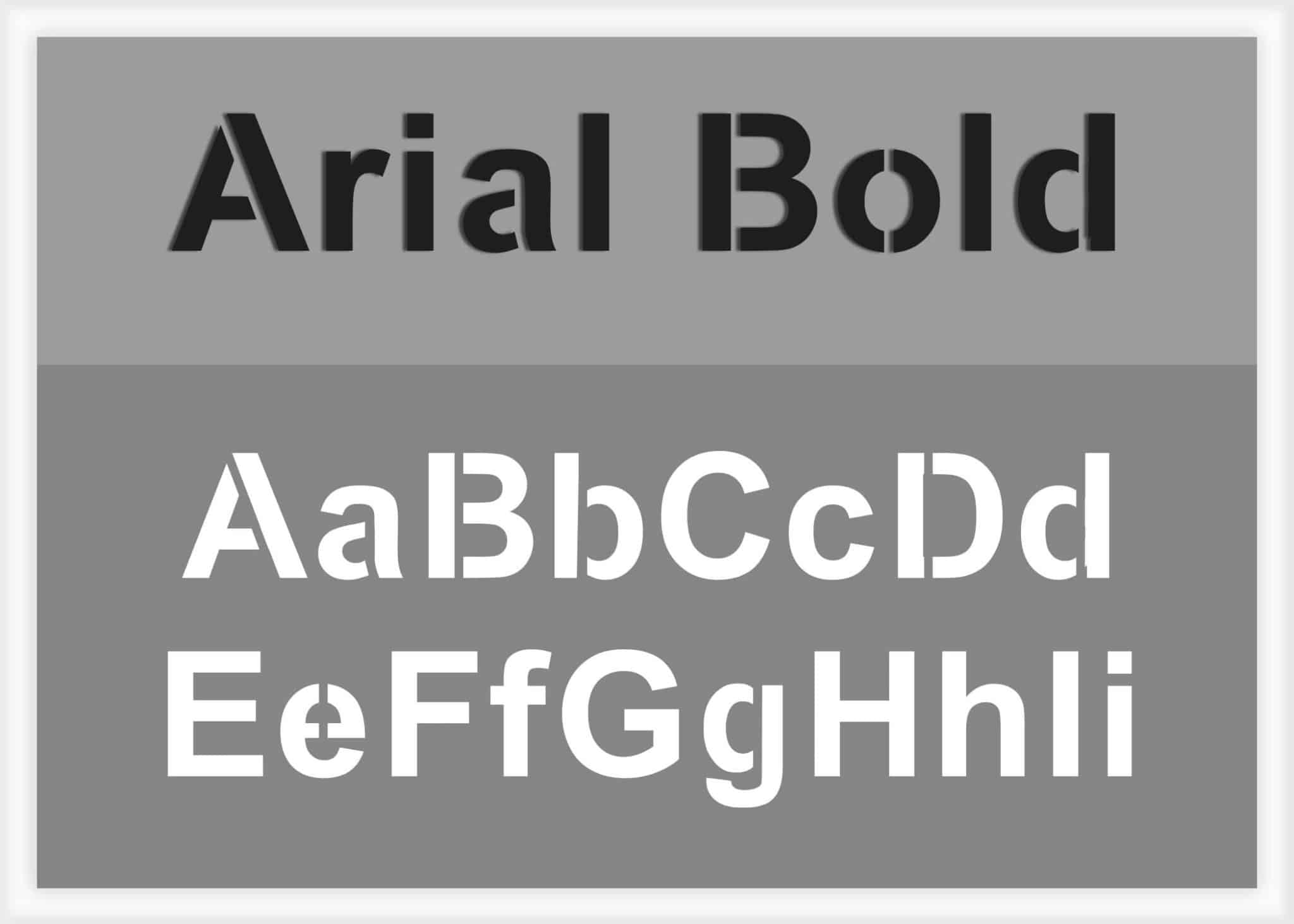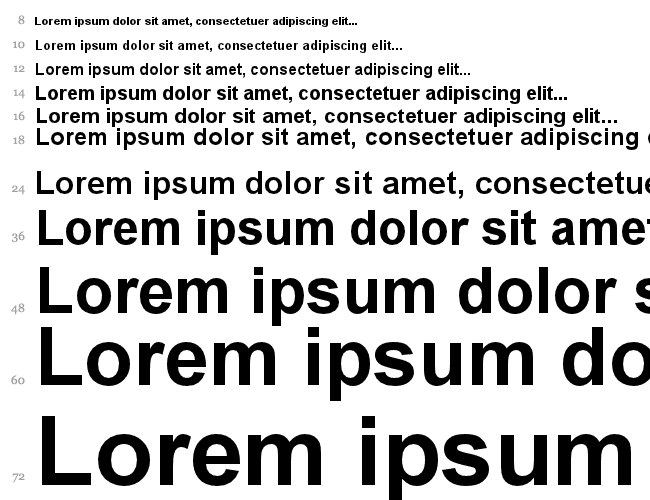
Identifont Arial Bold
Looking for bold arial fonts? Web making the web more beautiful, fast, and open through great typography Web arreia black by álvaro thomáz. Unleash creativity with free arial, bold fonts. Use the controls below to customize your text string and its.
Arial Bold truetype font
Web making the web more beautiful, fast, and open through great typography Perfect for impactful headlines and expressive content. Use the controls below to customize your text string and its. Web arreia black by álvaro thomáz. Looking for bold arial fonts?
Arial Font Typeface, Free script fonts, Free fonts download
Looking for bold arial fonts? Web arreia black by álvaro thomáz. Unleash creativity with free arial, bold fonts. Web making the web more beautiful, fast, and open through great typography Click to find the best 18 free fonts in the bold arial style.